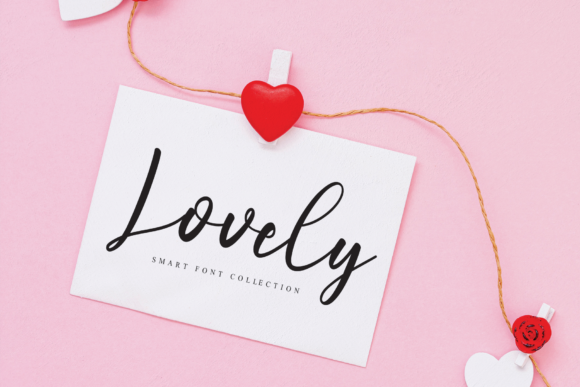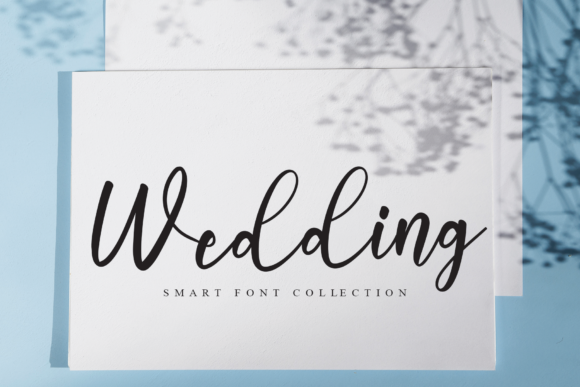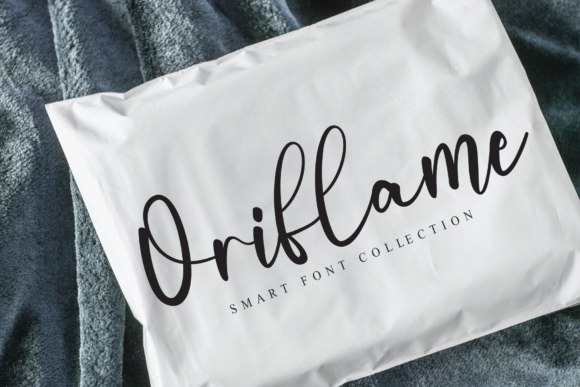
Introduction to Signatures Font
Have you ever stared at a blank canvas, waiting for inspiration to strike? That’s exactly where I was when I first discovered the Signatures Font. As a designer, I’m always on the lookout for unique and high-quality design resources to elevate my creative projects. And let me tell you, Signatures Font is a game-changer.
| 👤 Author | Misterletter.co |
With its beautiful and modern handwritten style, Signatures Font adds a touch of realism to any design. Whether you’re working on a logo, poster, or social media graphic, this font is sure to make your ideas stand out. Plus, with a transparent background, you can easily layer it over your design without any hassle.
Key Features of Signatures Font
- High-quality font designed specifically for creative projects, ideal for use as a design resource.
- Unique characteristics include a modern and elegant design, perfect for adding a touch of sophistication to your creative project.
Honest Review: Signatures Font
As a designer, I’m always on the lookout for high-quality design resources to elevate my creative projects. Recently, I came across the Signatures Font, and I was excited to put it to the test.
One of the standout features of the Signatures Font is its versatility. With a range of stylish and elegant styles, it’s perfect for any design project that requires a touch of sophistication. I particularly loved the transparent background option, which allowed me to layer the font seamlessly over images and graphics.
- ⚠️ Limited character set, which may be a drawback for designers who need a wide range of characters
- ⚠️ Not ideal for use in complex or multi-language projects
Overall, I was impressed with the Signatures Font’s quality and flexibility. While it may have some limitations, it’s a great addition to any designer’s toolkit. With a free download available, it’s definitely worth checking out for your next creative project.
Signatures Font
Introduction to Signatures Font
Signatures Font is a versatile design resource that can be used for a variety of creative projects. With a transparent background, it can be easily integrated into any design. This font is available for free download, making it an ideal choice for designers of all levels.
Common Use Cases for Signatures Font
Signatures Font is ideal for use in a variety of creative projects, including logos, social media graphics, business cards, and more. Its high-quality design makes it perfect for use in both personal and professional projects.